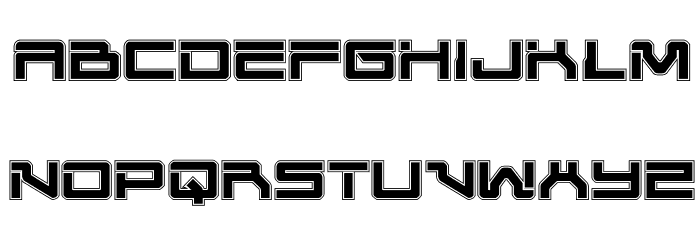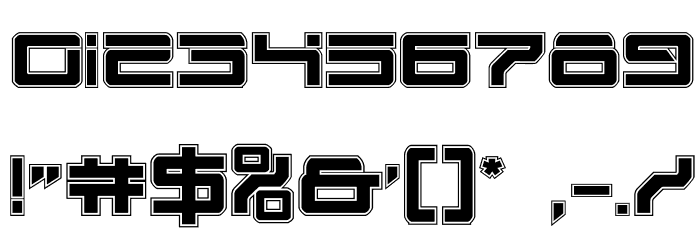
United Planets Academy Font
This font features a futuristic and geometric design with bold, block-like characters. Each letter is outlined with a thick border, creating a striking contrast between the inner and outer sections. The characters have a squared, angular appearance, giving them a technological and modern feel. The uppercase and lowercase letters maintain a consistent style, with the lowercase being slightly smaller but equally bold. Numbers and special characters follow the same design principles, ensuring uniformity across all glyphs. This font is ideal for projects that require a modern, tech-inspired aesthetic.
A futuristic, geometric font with bold, outlined characters.
- Proposed Projects: Ideal for sci-fi themed designs, technology branding, video game interfaces, and futuristic posters.